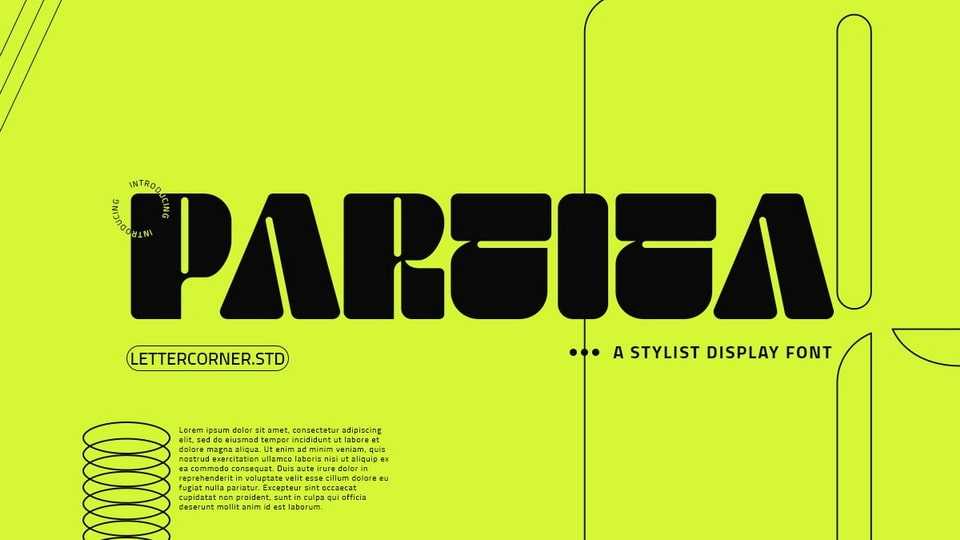
Download Partita font, a brand new display typeface with quirky letterforms. Partita is perfect and suitable for branding, headline, logotype, sticker, editorial design, and etc.
Designer: Lettercorner Studio